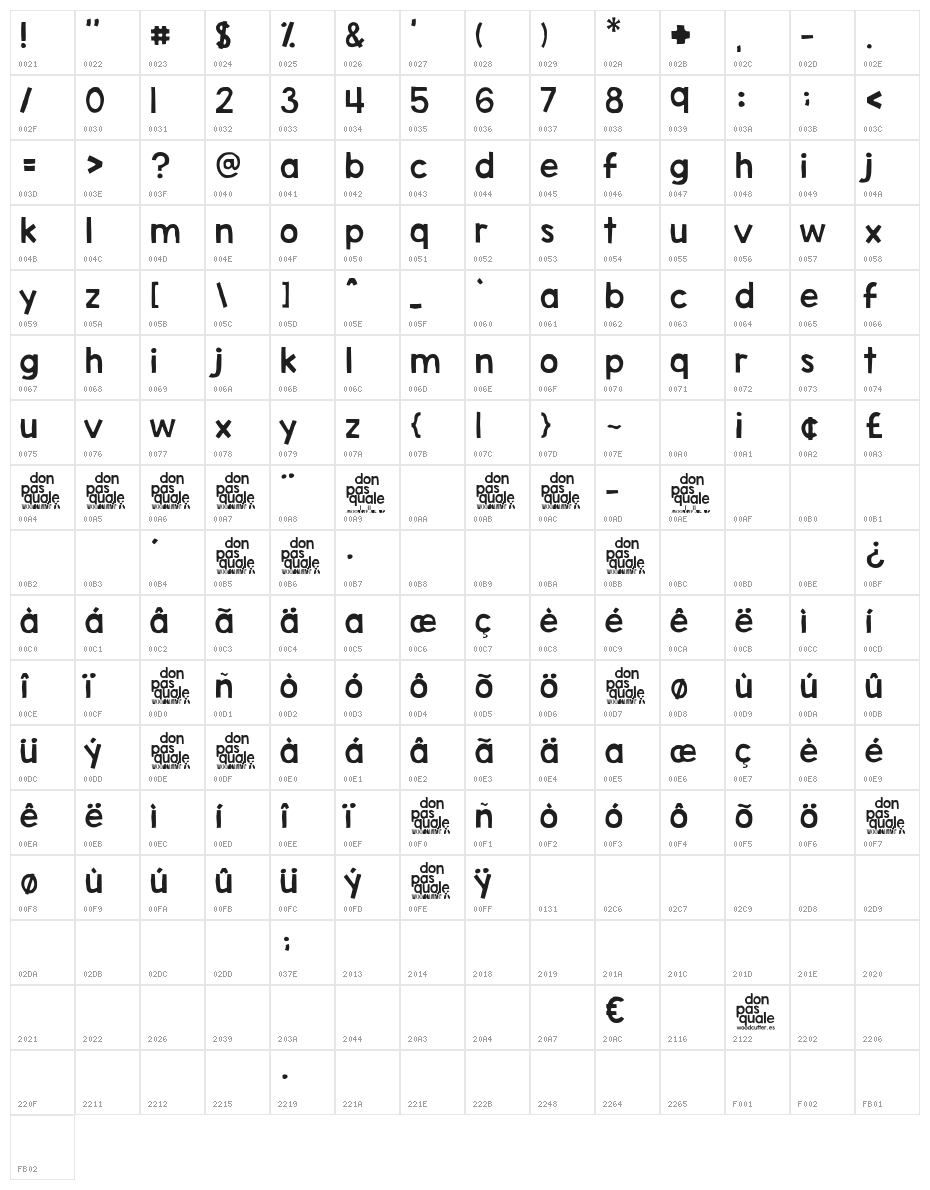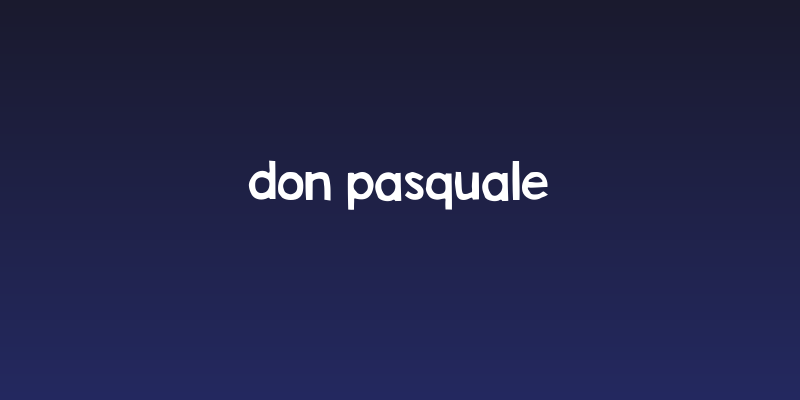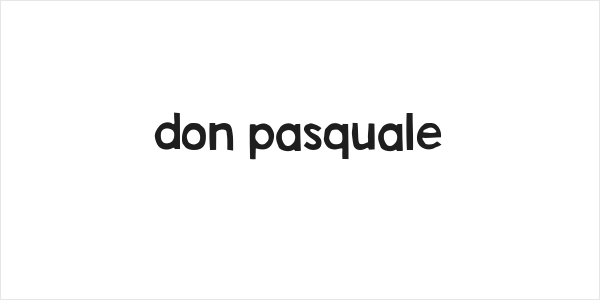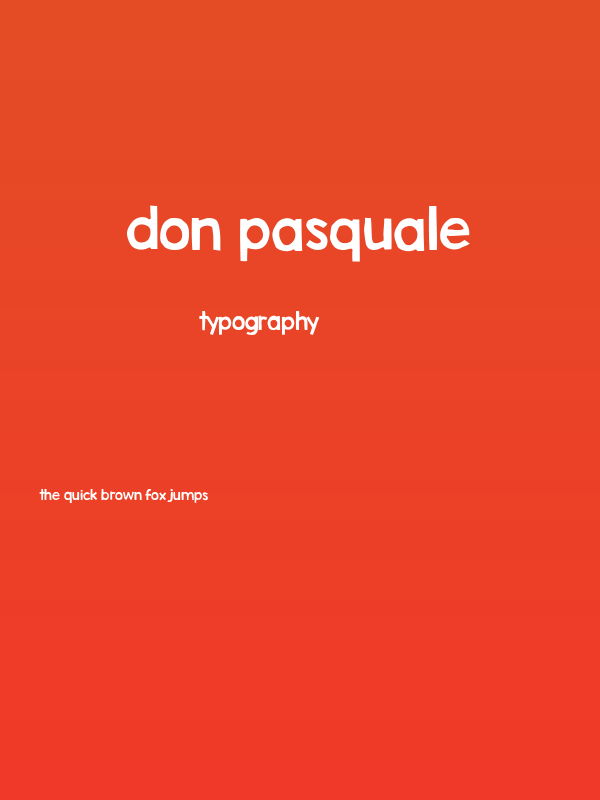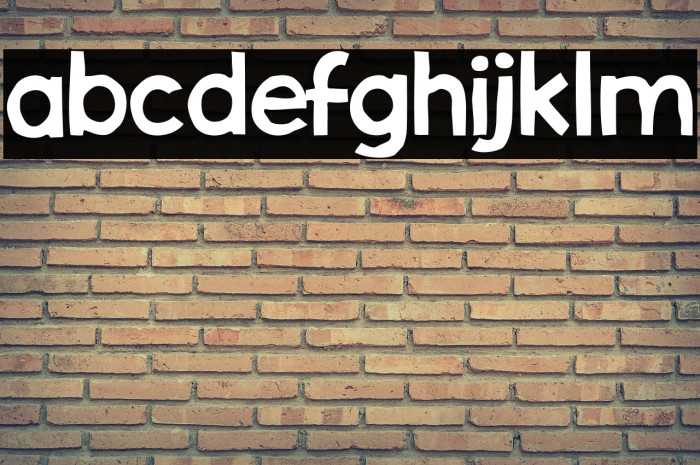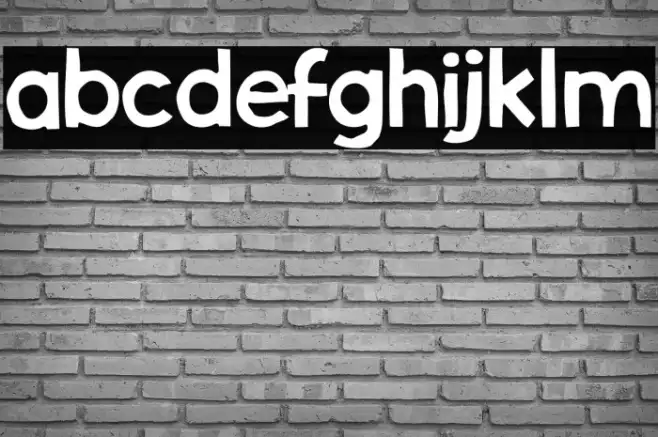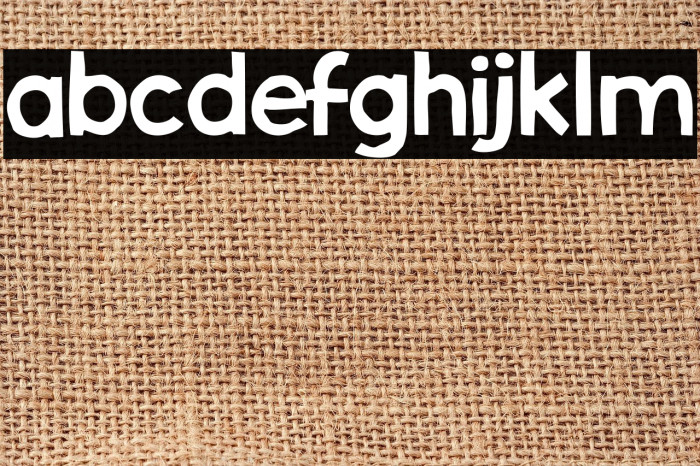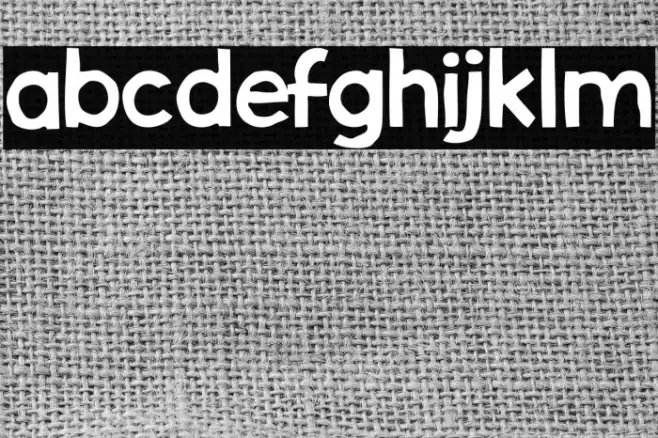
Don Pasquale Font
Don Pasquale Description
This font features a playful and bold design with a hand-drawn aesthetic. The characters are rounded and slightly irregular, giving it a whimsical and informal feel. The uppercase and lowercase letters maintain a consistent style, with a slight tilt that adds to its dynamic appearance. Numbers and special characters are equally bold and maintain the same playful characteristics. The overall look is approachable and friendly, making it suitable for creative and casual applications.